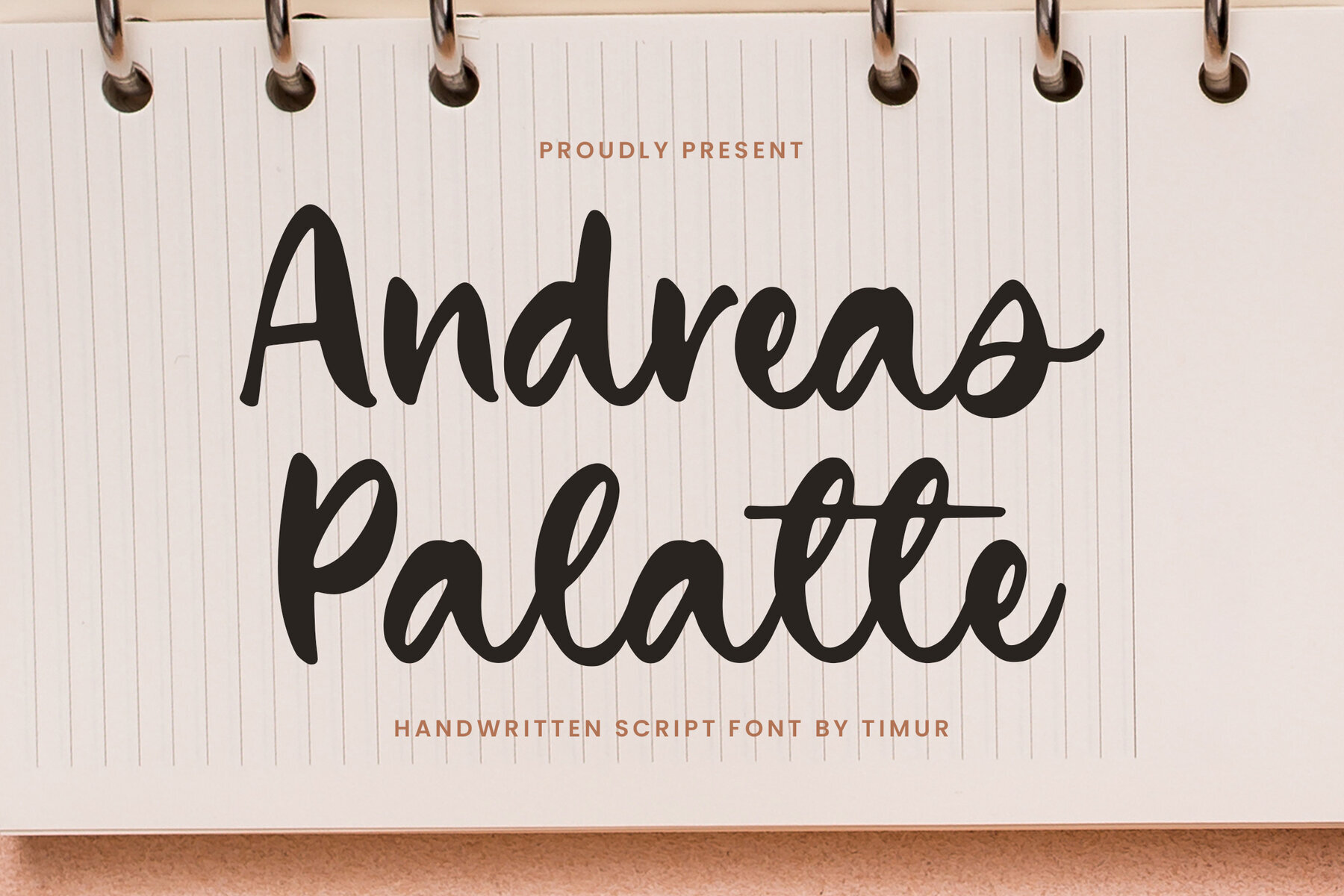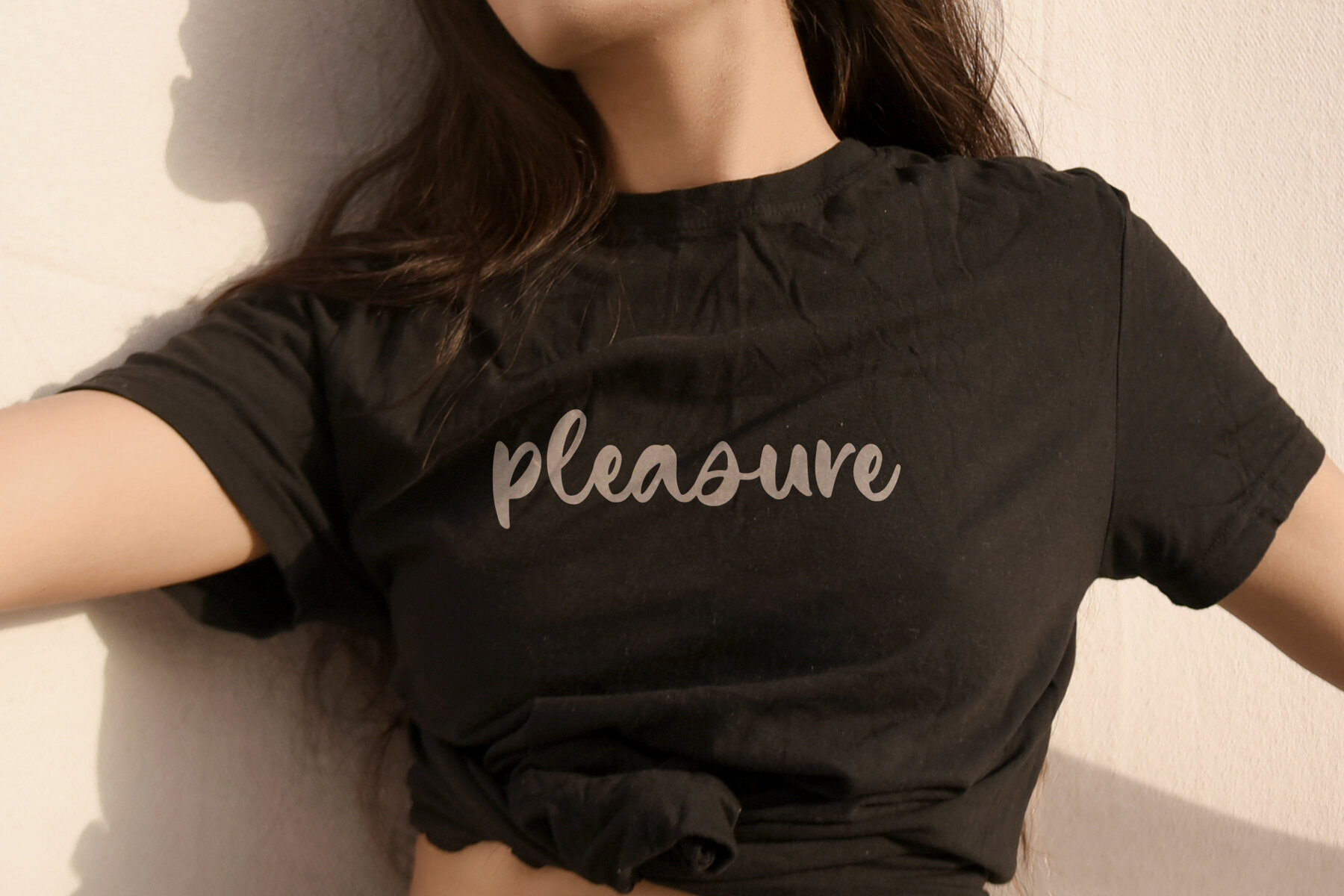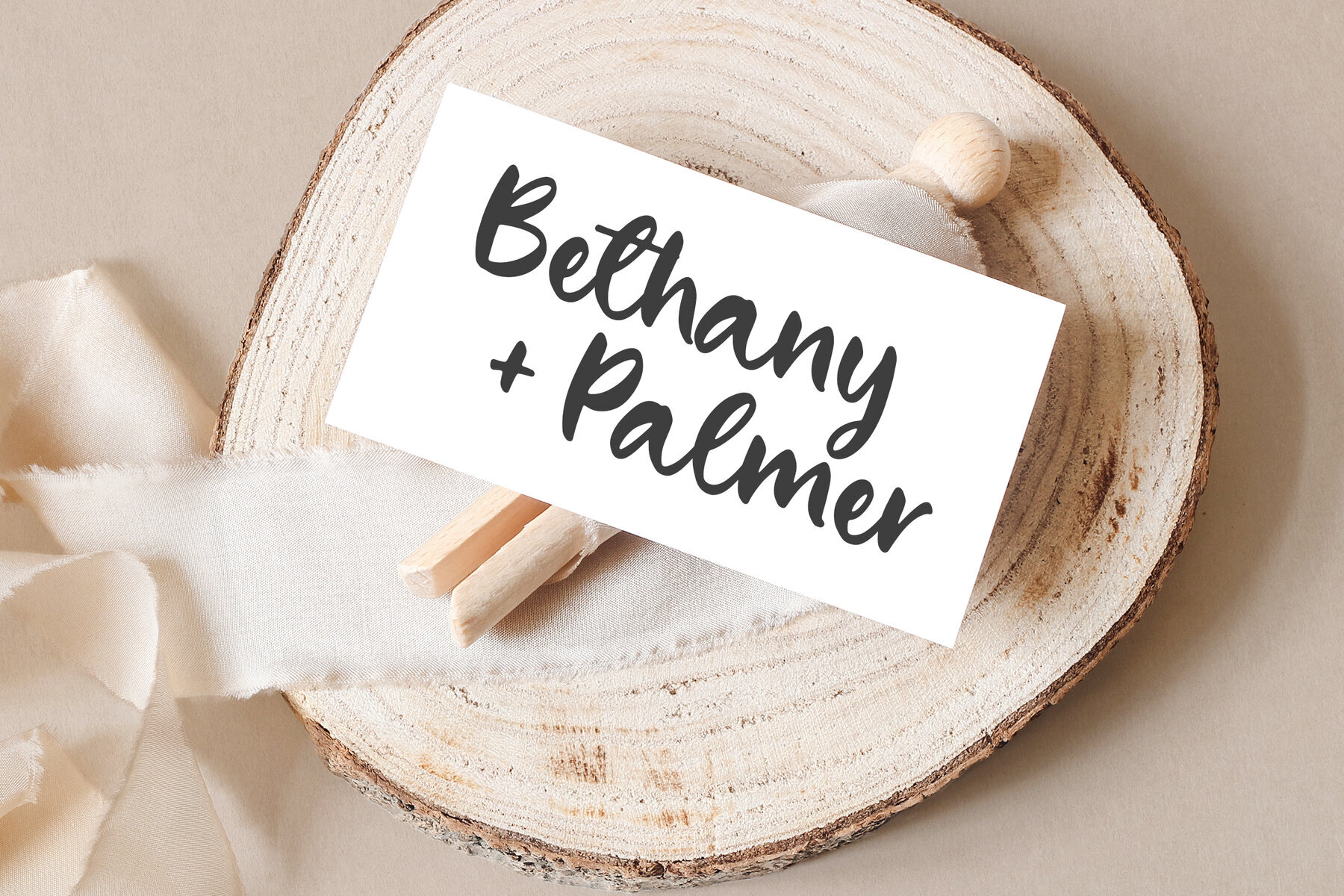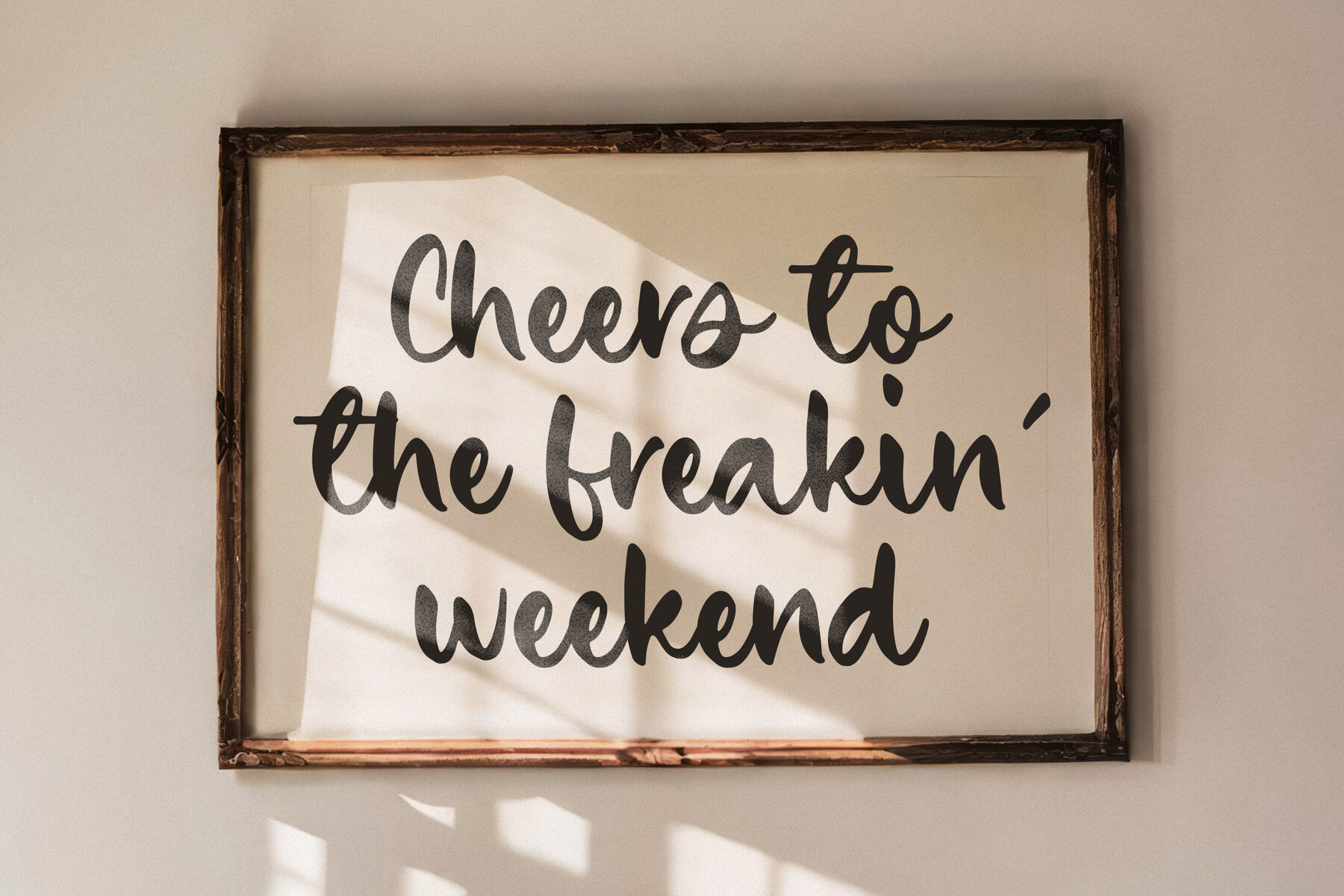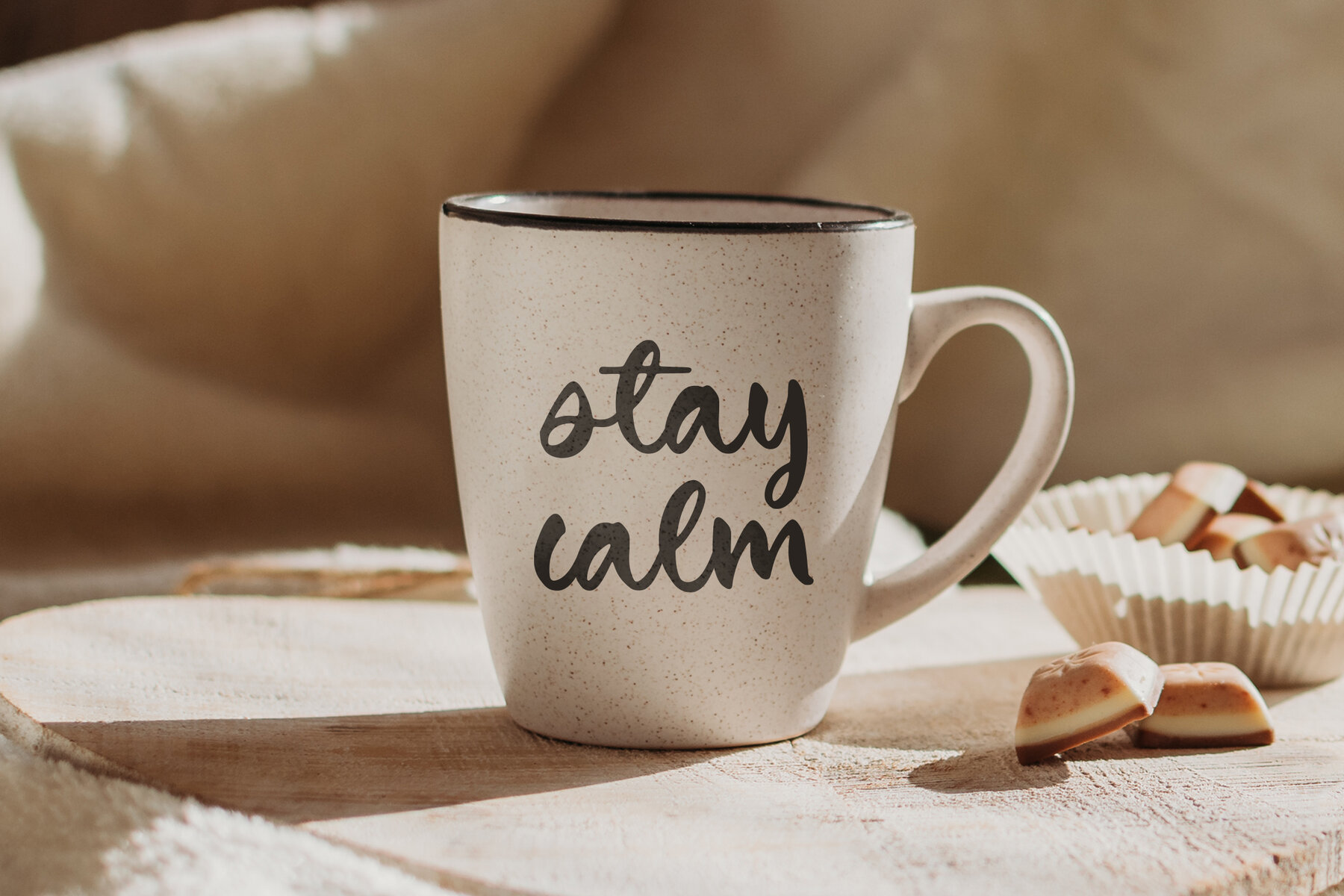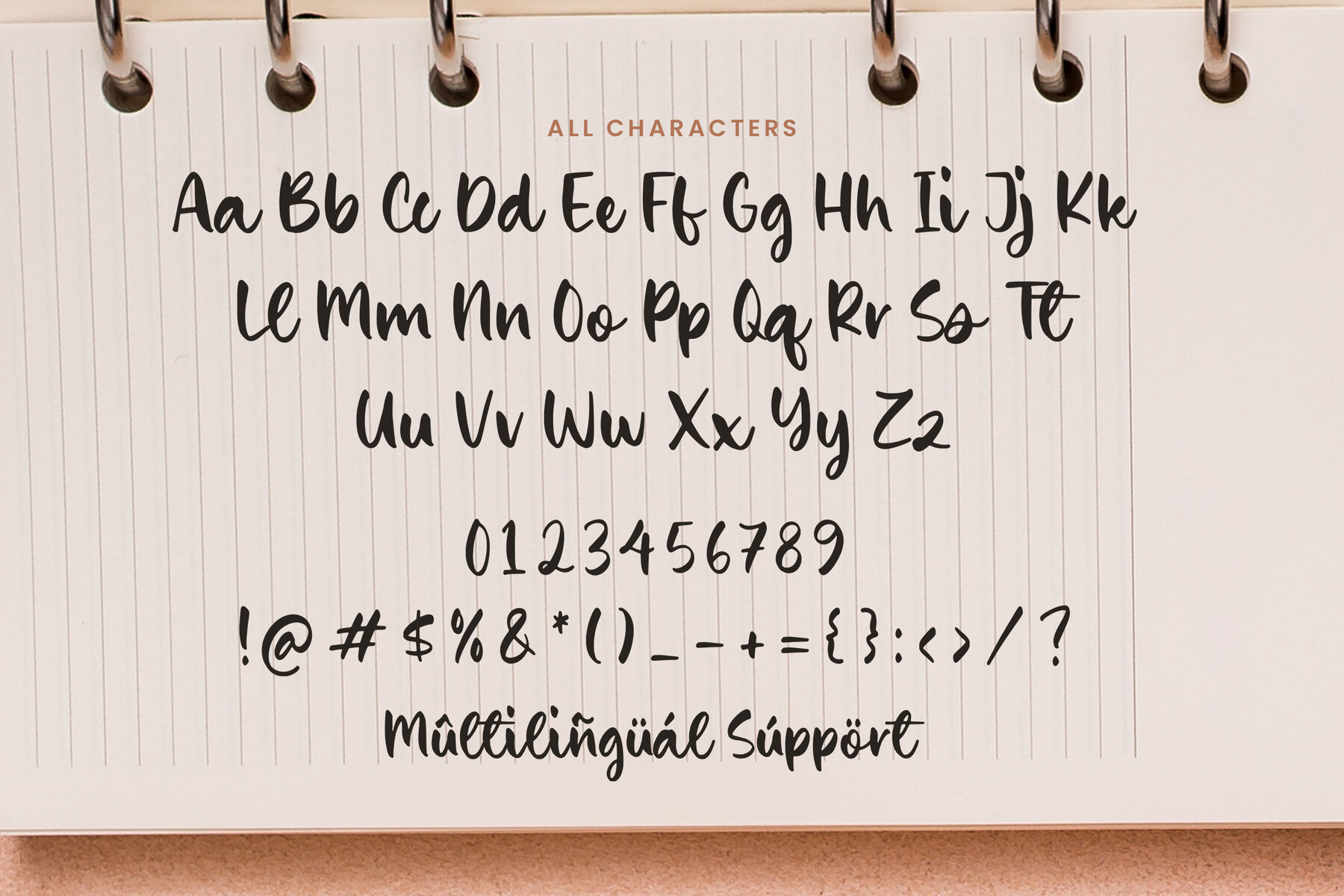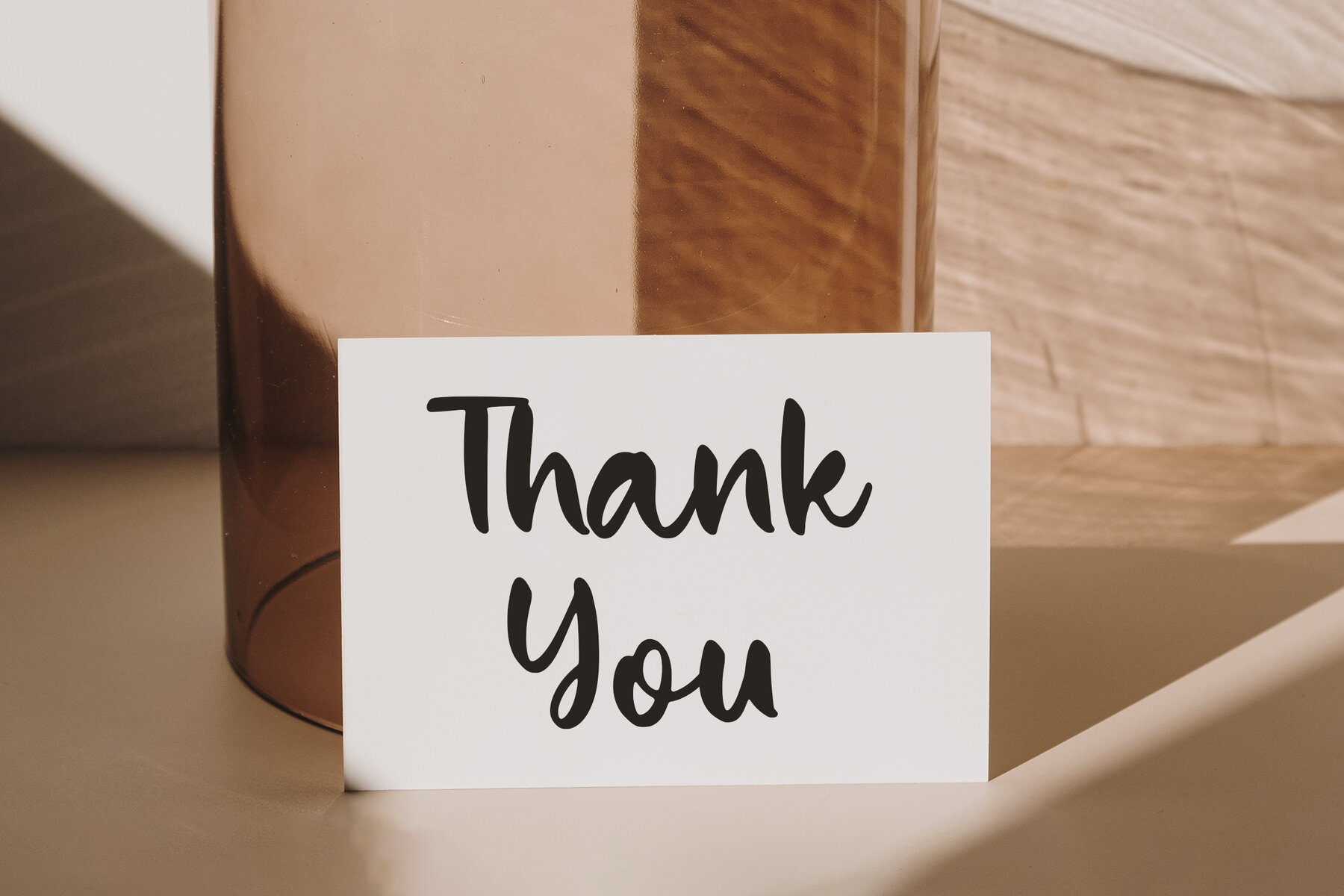
Andreas Palatte Font
Andreas Palatte
Andreas Palatte is an elegant handwritten script font that captures sophistication and charm through its graceful curves and meticulously crafted letterforms. The font masterfully balances modern flair with timeless classicism, making it an excellent choice for projects requiring refined aesthetics—such as logos, invitations, and branding.
The fluid strokes and artistic swashes of Andreas Palatte lend a uniquely expressive and stylish feel to each word, enhancing the visual impact while maintaining legibility. Its handwritten touch adds an artistic dimension to any design, ensuring your project stands out with a distinctive and personal character.